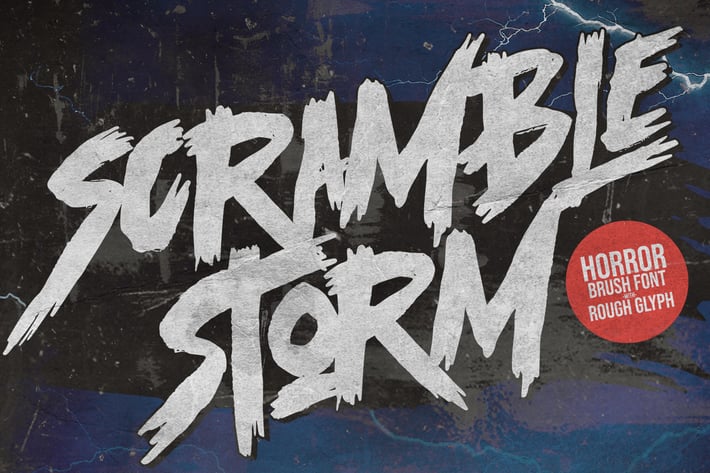
Scramble Storm - Horror brush Font
Introducing of our new product Scramble Storm Horror brush Font is handmade Rough Brush Font with ligature and Multilanguage support.
Can make it easier to convey the message in your design. use for awesome display, labeling, movie sceen, poster, movie title,quotes, posters, DIY projects, branding, packaging, greeting cards, websites, photography overlays, signs, window art, tags and so much more!
Best for project that need horror vibes , horror poster, childrenbook, cartoon, comic etc